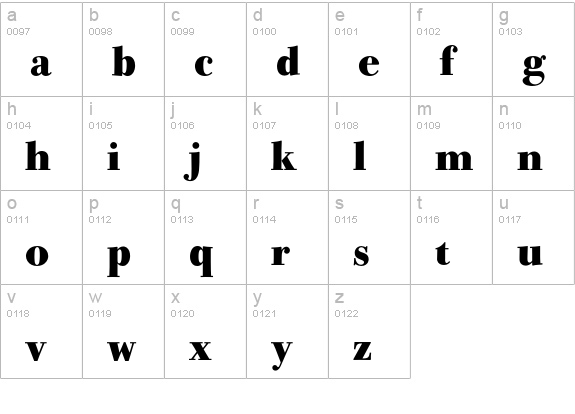
Bodoni Old Face Expert Bold OsF Font Details
Bodoni Old Face Expert Bold OsF is a strong, high-contrast variant in the Bodoni typeface family \xE2\x80\x94 well suited to headlines, attention-grabbing titles, and strong calls-to-action.
Bodoni Old Face Expert Bold OsF is a striking and elegant font that exudes timeless sophistication. Its bold weight commands attention and makes a strong statement in any design. With its classic serif style and clean lines, this font is perfect for adding a touch of refinement to your projects. Whether you are creating a poster, logo, or editorial layout, Bodoni Old Face Expert Bold OsF is sure to elevate your design to the next level. The best part is that Bodoni Old Face Expert Bold OsF is available for free download at FontsMarket.com. Now you can access this premium font without any cost, making it a valuable addition to your font library. Don't miss out on the opportunity to enhance your design projects with the timeless beauty of Bodoni Old Face Expert Bold OsF. Download it today and unleash your creativity!